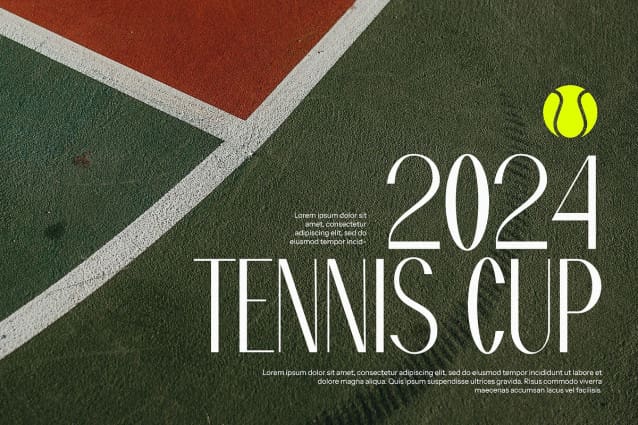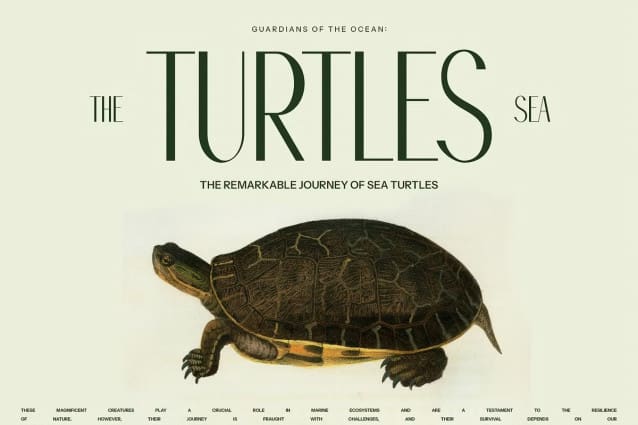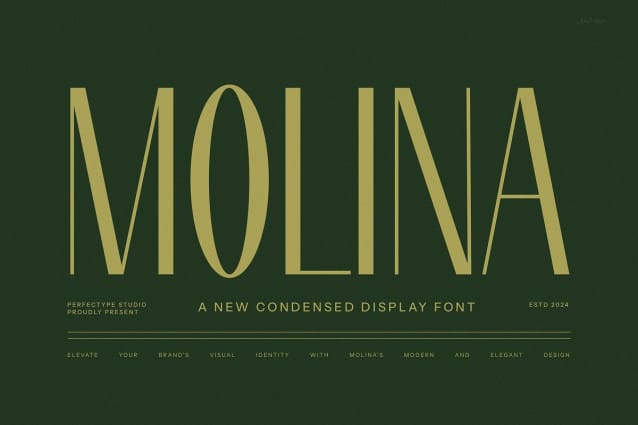
Molina Font
Molina Font – Modern Sans Serif Font Typeface inspired by the famous minimalist logo perfect for the purposes of designing templates, brochures, videos, advertising branding, logos, invitation, layout design, elegant crafting, beauty design and other